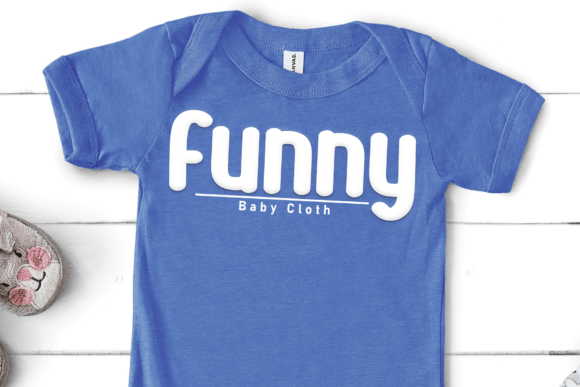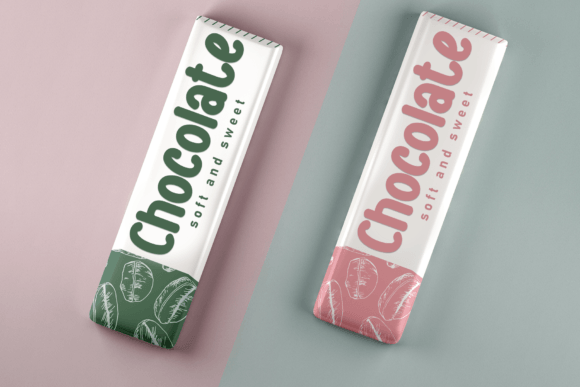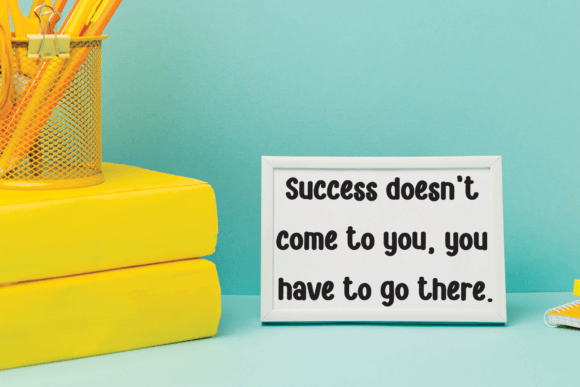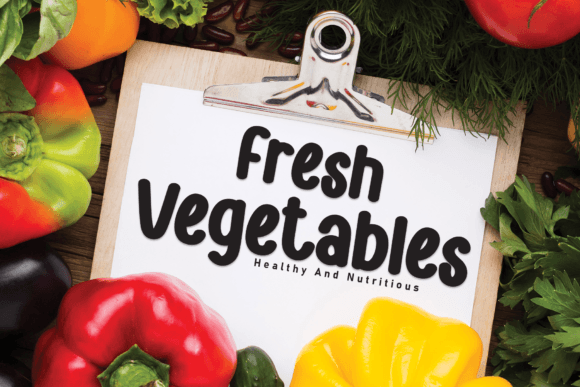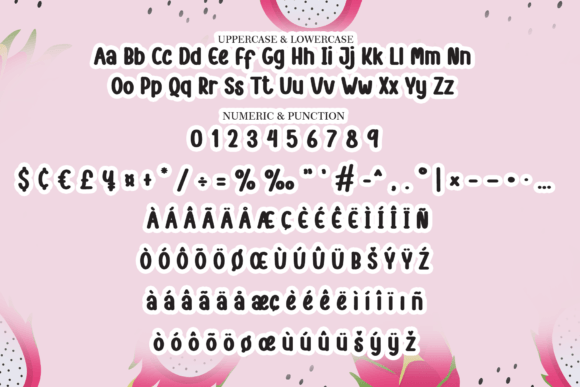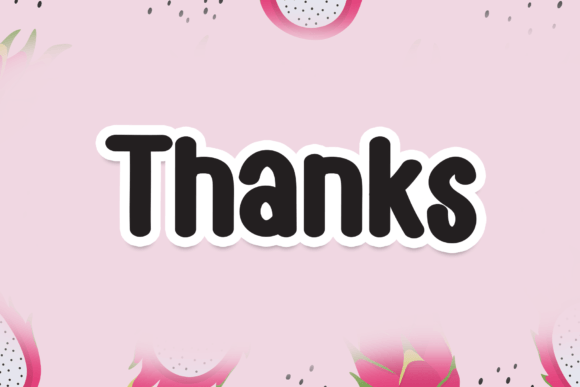
Dragon Fruit Font: Add a Sweet and Friendly Touch to Your Designs
Are you looking for a font that can add a fun and playful touch to your designs? Look no further than the Dragon Fruit Font! This sweet and friendly display font is perfect for creating eye-catching wedding invitations, cards, and other designs that require a touch of whimsy. In this article, we’ll take a closer look at the Dragon Fruit Font, its features, and how you can use it to elevate your designs.
What is Dragon Fruit Font?
Dragon Fruit Font is a modern display font that is designed to be both cute and fun. Its playful and friendly appearance makes it perfect for designs that require a lighthearted touch. The font is ideal for use in wedding invitations, greeting cards, and other paper crafts. Its unique and quirky style is sure to make your designs stand out from the crowd.
Key Features of Dragon Fruit Font
- Cute and Fun Design: The Dragon Fruit Font has a playful and friendly design that is sure to add a touch of whimsy to your designs.
- Ideal for Display Text: This font is perfect for display text, such as headings, titles, and captions.
- Perfect for Wedding Invitations and Cards: The Dragon Fruit Font is ideal for creating beautiful and unique wedding invitations and cards.
- Easily Readable: Despite its playful design, the Dragon Fruit Font is easily readable, making it perfect for use in a variety of designs.
How to Use Dragon Fruit Font in Your Designs
The Dragon Fruit Font is a versatile font that can be used in a variety of designs. Here are a few ideas to get you started:
- Wedding Invitations: Use the Dragon Fruit Font to create beautiful and unique wedding invitations that will set the tone for the big day.
- Greeting Cards: Add a touch of whimsy to your greeting cards with the Dragon Fruit Font.
- Paper Crafts: Use the Dragon Fruit Font to add a playful touch to your paper crafts, such as scrapbooking and card making.
- Digital Designs: The Dragon Fruit Font can also be used in digital designs, such as social media graphics and blog posts.
Tips for Using Dragon Fruit Font
Here are a few tips for using the Dragon Fruit Font in your designs:
- Use it Sparingly: While the Dragon Fruit Font is cute and fun, it can be overwhelming if used too much. Use it sparingly to add a touch of whimsy to your designs.
- Pair it with Other Fonts: The Dragon Fruit Font pairs well with other fonts, such as serif and sans-serif fonts. Experiment with different font combinations to find the perfect look for your design.
- Experiment with Colors: The Dragon Fruit Font looks great in a variety of colors. Experiment with different colors to find the perfect look for your design.
The Dragon Fruit Font is a sweet and friendly display font that is perfect for adding a touch of whimsy to your designs. Its playful and friendly appearance makes it ideal for use in wedding invitations, greeting cards, and other paper crafts. With its easily readable design and versatile style, the Dragon Fruit Font is sure to become a favorite in your design arsenal.